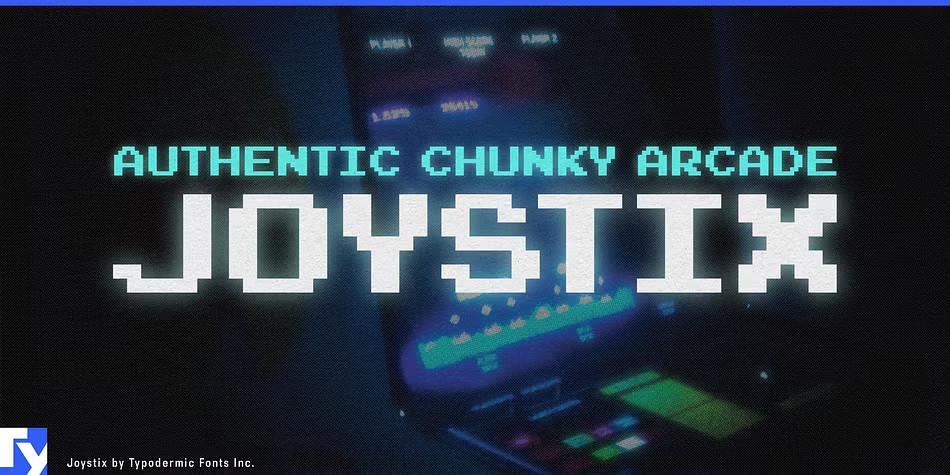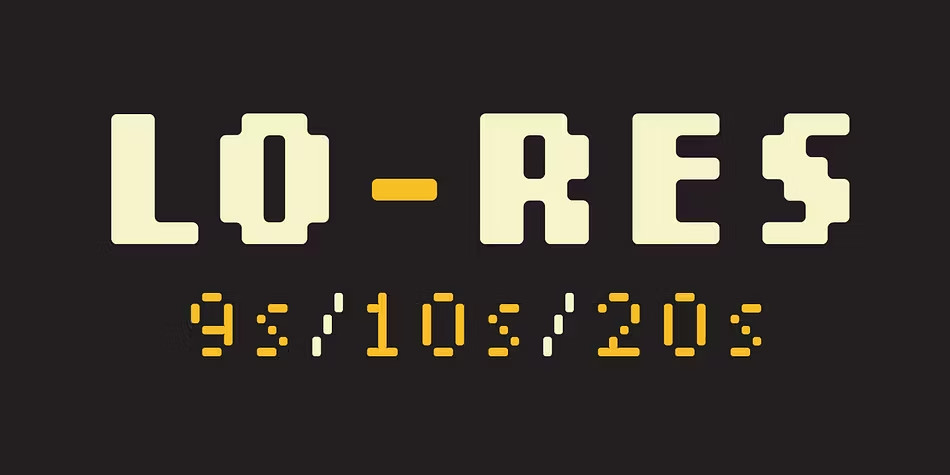
Pixel Fonts
Lo-Res
The Lo-Res font collection represents a fusion of pixelated aesthetics, incorporating Emigre's earlier coarse-resolution fonts and bitmap renditions of Base 9. It supersedes the previous Emigre, Emperor, Oakland, and Universal font families, consolidating these bitmap designs under a unified family name in the font menu, streamlining their nomenclature. Additionally, the Lo-Res fonts introduce technical enhancements, such as an expanded character set, greater uniformity in character forms across styles and weights, and enhanced alignment across different resolutions.
Basic Pixel
Basic Pixel is the perfect font for creative enjoyment, offering five distinct styles and a versatile variable file encompassing them all for variable enthusiasts. By mixing styles and colors like playful building blocks, you can craft limitless new designs and captivating visual displays. Its precision makes it suitable for both lengthy paragraphs and bold display text. Dive in and have a blast!
Pixelnerd
Pixelnerd, the ultimate font for pixel enthusiasts and nerds alike, is here! This versatile font family comes in a range of styles: regular, italic, curved, curved italic, stencil, and curved stencil. Keep on pixelating!
Sanspix
Introducing Sanspix, your go-to font for all things retro and pixelated! Whether you're diving into nostalgic game design or working on movie titles, logos, posters, books, headlines, or any creative project, Sanspix has got your back. Just give it a whirl, and you'll see how it adds that extra pop to make your ideas shine!
Bittypix Monospace
Bittypix Monospace is an exquisite 8-pixel font crafted with meticulous care and precision, brought to life by the talented creators at Chequered Ink.
Bubbly Bit
Meet Bubbly Bit, your friendly retro pixel font style, tailor-made for all your nostalgic game design dreams. But that's not all—it's also a great match for movies, documentaries, logos, posters, books, and more. Infuse your creative projects with Bubbly Bit and watch them pop with style!
Joystix
Transport yourself to the golden age of arcade gaming with Joystix, an authentic retro game-inspired typeface that immerses you in the spirit of the 1980s. Drawing inspiration from the iconic pixelated fonts of that era, Joystix impeccably preserves the enduring allure of classic video games.
SB Message
SB Message, inspired by Nokia's classic font, initially designed for print, evolved during the pre-smartphone era when Nokia dominated the market. It offers a taller, narrower profile for impactful headlines. Originally, it had two styles, Solid and Open, for screen-like headlines, and later added variations like dot matrix and VDU line for design versatility. It remains highly legible at 10px height.